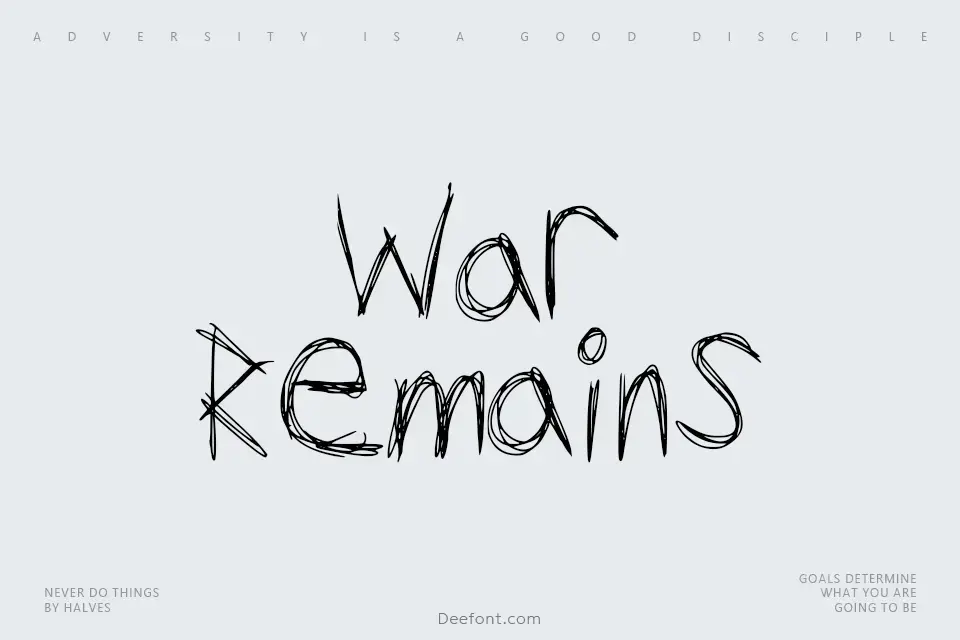
War Remains Font
War Remains is a scratchy, hand-drawn display typeface designed with an edgy, rebellious aesthetic perfect for horror-themed projects and eye-catching graphics. Featuring uneven letterforms and raw, imperfect strokes reminiscent of graffiti and trash typography, this typeface excels in creating dramatic impact for movie posters, Halloween designs, album artwork, and dark-themed branding. The inconsistent character spacing and gritty visual style convey spontaneity and raw energy, making it ideal for bold headlines and attention-grabbing titles that demand a rebellious, alternative aesthetic.